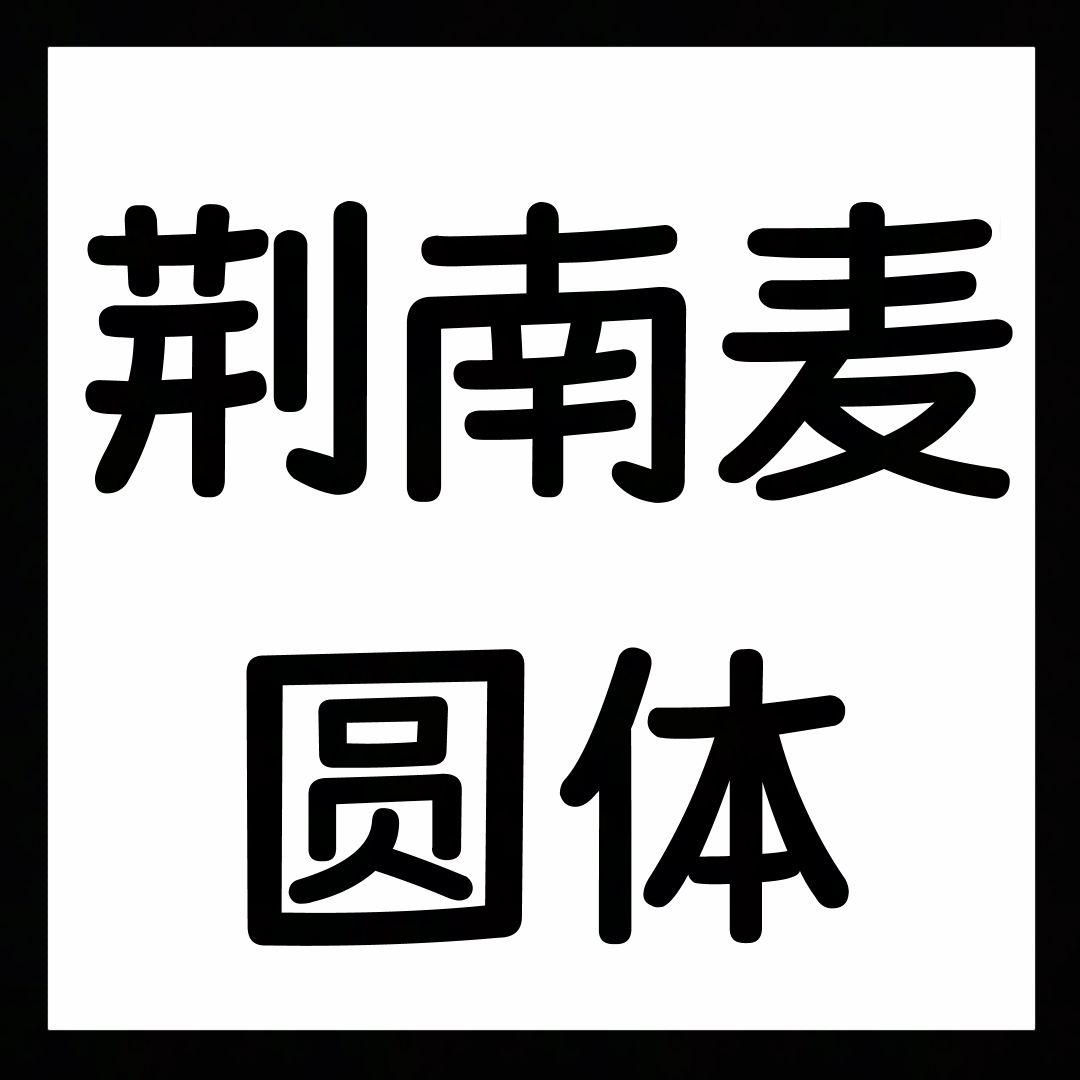
Kingmaiyuanti-Font-Adapt to English
Give Your Don’t Starve Together Experience a Whimsical Touch with the Kingmaiyuanti Font Mod
Are you looking to add a unique visual flair to your survival adventures in Don’t Starve Together? This charming mod introduces the delightful Kingmaiyuanti font, a style that brings a wonderfully childlike and rounded aesthetic to your game’s text. If you’ve ever felt that the standard interface could use a bit more personality, this font adaptation is designed to capture your imagination and enhance your immersion.
A Font with Personality
The Kingmaiyuanti font is characterized by its soft, approachable curves and a playful design that feels both endearing and easy on the eyes. It’s a perfect choice for players who appreciate subtle yet impactful visual customization. Whether you’re reading item descriptions, character dialogue, or in-game messages, this font transforms the mundane into something a little more special, adding a touch of whimsy to the often-harsh world of Don’t Starve Together.
Customization at Your Fingertips
One of the standout features of this mod is its flexibility. The Kingmaiyuanti font comes with a default refinement that ensures a clean and legible presentation. More importantly, players have the ability to adjust the font size to their exact preferences. This level of control ensures that the new font integrates seamlessly into your gameplay, allowing you to tailor the experience to your comfort and visual needs without compromising readability.
Key Features of the Kingmaiyuanti Font Mod:
- Introduces the unique Kingmaiyuanti font to Don’t Starve Together.
- Offers a childlike and rounded aesthetic for improved visual appeal.
- Provides a default refinement for clarity and ease of reading.
- Allows for adjustable font sizing to suit individual player preferences.
- Enhances the overall atmosphere and immersion of your Don’t Starve Together sessions.
This mod is an excellent way to personalize your Don’t Starve Together game and experience the familiar world with a fresh, friendly new look.